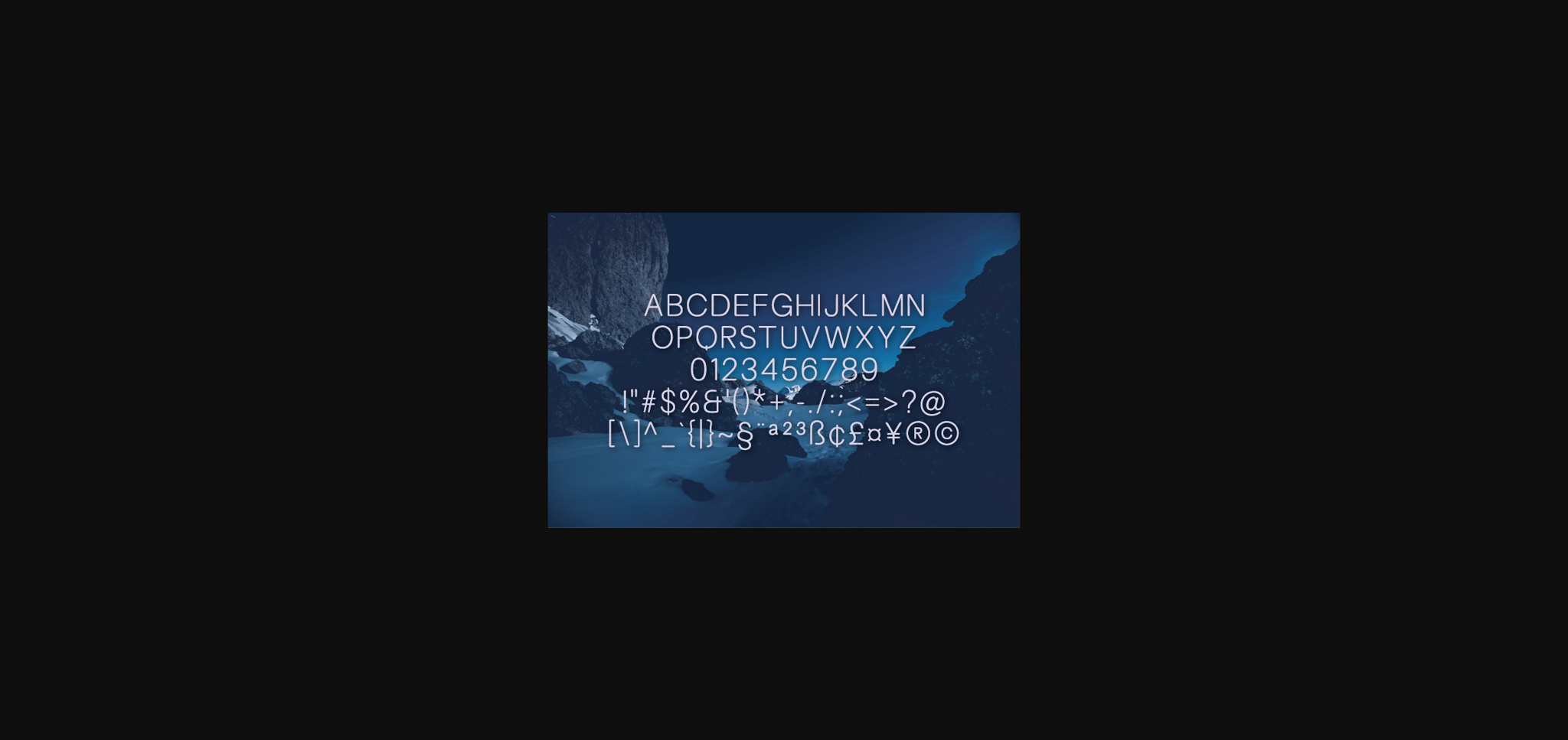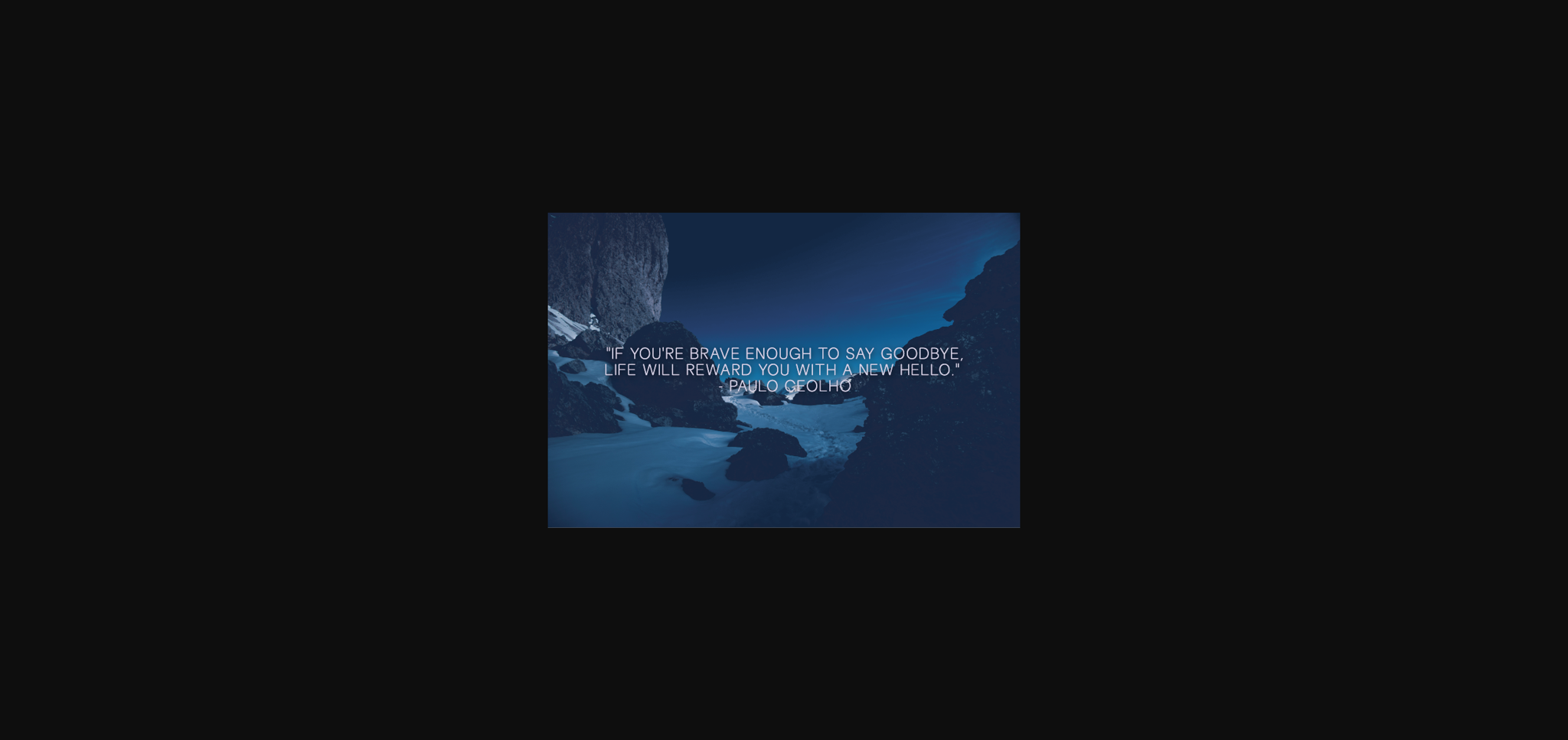
About Addisand Font
Addisand is a simple and versatile sans serif font created to complement every project you’re working on.
It is perfect for displays, headers, invitations, save the dates, weddings, and so much more!